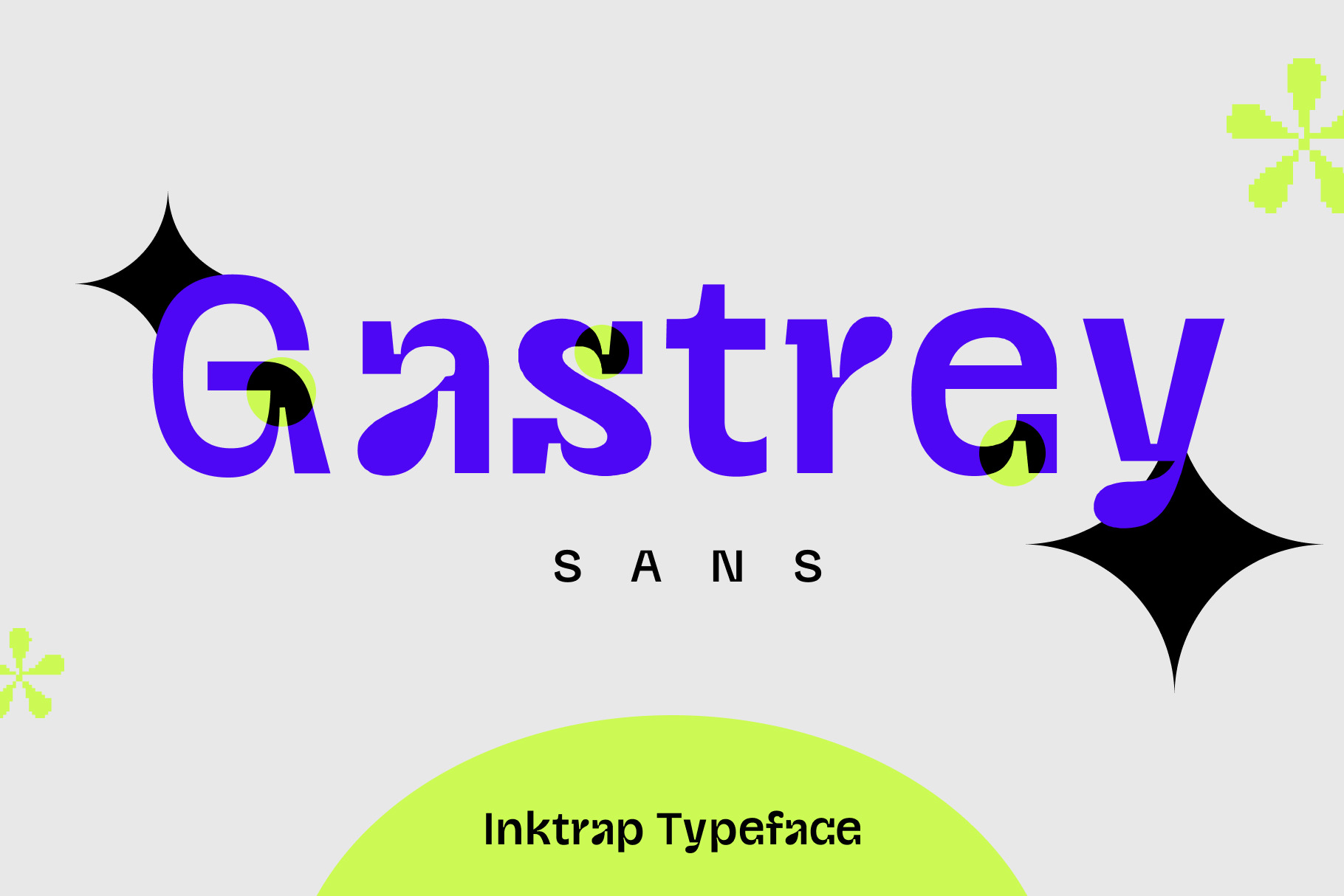
Gastrey - Inktrap Typeface
Gastrey - Inktrap Typeface is a sans serif font with a inktrap style. This font is very suitable for use in the printing industry, logo design, website headings, design templates or others design project.